Color Font List
An up and comer in the land of variable fonts is the color font variable font! You'll be amazed and what these fonts give you out of the box.
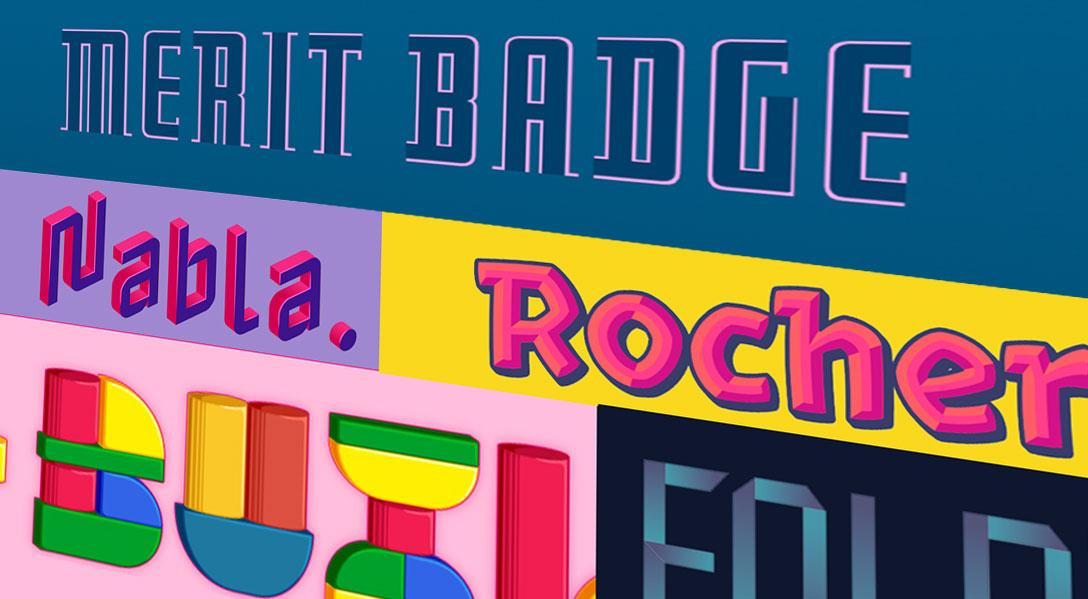
Color fonts allow font designers to merge multiple color layers into one font file and assign a color to each layer. Support for variable color fonts is pretty good, you might find some discrepancies with rendering between the browsers. Check out my post on Using color fonts for more information on the technical usage with CSS.
There aren't a whole lot of variable colour fonts available right now, but lets take a look at some that are available and what you can do with them (in no particular order).
Rocher Color
Rocher Color is an experimental variable color font with 2 axes (bevel and shadow), it comes with 11 color palettes built in (but you can always create your own as well). The font was inspired by Merit Badge, a variable color font designed by David Jonathan Ross (featured below).
Rocher colour is a great example of a font that complete obliterates the need for layering text effects on the web. The font has bevel and shadow built in meaning that with this font I no longer have to use heavy, complex text shadows, or layer multiple versions of a font to achieve the effect. It's just available for me to use as a regular font.
It's a wonderful font, and a lot of fun to work with.
Merit Badge
Merit badge by David Jonathon Ross, was the second variable colour font ever made (cool hey). It has a weight axis which adjusts the thickness of the outlines and a custom axis called 'sans' which allows you to adjust the serifs (full, none or somewhere in between).
It comes with one built in colour pallette with pink yellow and blue, but you can change this to suit your needs with the CSS property font-pallette, or use the customiser available on David's site.
It's a little quirky and sort of has that 'gaspipe' feel, perfect for text effects or if you want to have something stand out in your designs.
Nabla
Nabla, available on Google Fonts, is inspired by vintage computer games and features a depth and highlight axis allowing you control over gradients highlights and blended shadows. It utilises the new the COLRv1 color-font format which enables the gradient features in the font.
You can use this font via Google Fonts, but you can also get it directly from the Typeature website and make use of the customiser to create your own masterpiece. Alternatively you can use one of the 7 pre-built colour palettes within the font.
What I love about this font is just how perfectly it's been executed, its exceptionally clean, and detailed. It really is a stunning font, and with such hard work put into it there is really nothing left to do as far as text effects go! It's perfect.
Foldit
Foldit is an absolutely stunning font available on Google Fonts, this kind of paper folding texture is very well sort after in text effect land and frankly it's really hard to make with regular fonts. So having the style built directly into the font is incredible.
It has a single axis where you can control the weight, making it very thick or very thin, by default it's set to greyscale, but you can control the colour palette using the font-palette property to any colour scheme you need for your projects.
Gimme
Last but certainly not least is Gimme by Arthur Reinders Folmer. Arthur makes hands down the most incredible colour variable fonts you will ever see in your life. Gimme is everything.
It's an ever-growing, ever evolving type family of multi-chromatic and variable display typefaces. From transformers to constructo to playing cards. The font was inspired by a box full of toys and it certainly delivers.
It truly is an interesting, fun, creative application of variable colour fonts which combine not just the great technology but also push the boundaries of what we expect from fonts. It moves more into illustration than what you'd traditionally expect, and I think it's absolutely incredible. Arthur truly is a master of the variable colour fonts.